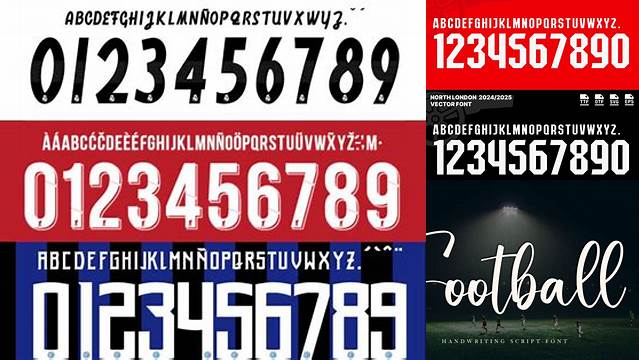
Hey football fans and design enthusiasts! Getting ready for 2026? Want your designs to scream football fever? You're in the right place! Let's dive into the world of football fonts for 2026, where we'll explore everything from where to find them to how to use them. Whether you're designing posters, jerseys, or even just spicing up your social media, having the right font can make all the difference. So, buckle up, and let's get started!
Football Fonts 2026: An Overview
Let's kick things off with a broad look at football fonts for 2026. We'll talk about why they're so important, what makes a font 'football-y,' and what to consider when you're choosing one. This is your 101 on all things football fonts, so pay attention!
Why Font Choice Matters in Football Design
So, why does the font even matter? Guys, think about it: fonts aren't just letters; they're a vibe! In football design, the right font can convey the energy, the passion, and the tradition of the sport. Imagine a sleek, modern font on a jersey versus a classic, bold typeface – they tell totally different stories, right? The font is the voice of your design, so make sure it's saying the right thing.
Key Characteristics of Football-Themed Fonts
What exactly makes a font a football font? Usually, it's a combination of characteristics like boldness, strength, and a sense of motion. Think about fonts that look powerful and dynamic, maybe with sharp edges or a slightly aggressive feel. Fonts that evoke a sense of speed and energy are also great choices. We're talking about fonts that can stand up to the intensity of the game!
Factors to Consider When Choosing a Football Font
Choosing the perfect football font isn't just about picking the coolest-looking one. You've gotta think about things like readability (can people actually read it?), the overall style of your design (does it fit?), and where you'll be using it (will it look good on a jersey?). We'll break down these factors so you can make the best choice for your project.
Understanding Font Licenses for Football Designs
Okay, this is important: before you go crazy downloading fonts, you need to understand font licenses. Just because a font is free to download doesn't mean you can use it for anything you want. We'll break down the different types of licenses and what they mean for your football designs.
Types of Font Licenses (Personal vs. Commercial)
There are two main types of font licenses: personal and commercial. Personal use fonts are fine for your own projects, but if you're planning to sell anything with the font, you'll need a commercial license. We'll explain the difference clearly so you don't accidentally break any rules.
What You Can and Cannot Do with Free Fonts
Even free fonts come with rules. We'll cover what you're typically allowed to do with free fonts and what's off-limits. Things like embedding fonts in documents or using them in logos can sometimes have restrictions, so it's crucial to be informed.
How to Check the License of a Downloaded Font
Not sure what kind of license a font has? No problem! We'll show you exactly where to look in the font files to find the license information. It's usually in a text file included with the font, and it's worth taking a few minutes to read it.
Best Font Styles for Football-Related Projects
Now, let's get specific about font styles. What kind of fonts work best for different football-related projects? We'll cover everything from bold, sporty fonts to more elegant options that might be perfect for event posters or team announcements.
Bold and Sporty Fonts for Jerseys and Banners
When you're designing for jerseys or banners, you want a font that's strong, impactful, and easy to read from a distance. Think bold sans-serifs and athletic-style fonts. We'll give you some specific examples and show you why they work so well.
Modern and Sleek Fonts for Team Logos
For team logos, you might want something a little more modern and sleek. A clean sans-serif or a geometric font can give your logo a professional and contemporary look. We'll explore some options that balance style and readability.
Classic and Vintage Fonts for Retro Designs
Love that retro football vibe? Then you'll want to check out some classic and vintage fonts. These fonts often have a timeless appeal and can add a touch of nostalgia to your designs. We'll point you to some great vintage-inspired options.
Creative and Unique Fonts for Event Posters
Event posters are a chance to get a little more creative with your font choices. You can experiment with display fonts, hand-drawn styles, or anything that fits the overall theme of the event. We'll share some ideas to get your creative juices flowing.
How to Install Fonts on Different Operating Systems
Okay, you've downloaded some awesome fonts – now what? You need to install them on your computer so you can actually use them! We'll walk you through the process of installing fonts on Windows and macOS, step by step.
Installing fonts on Windows is pretty straightforward. We'll show you the easiest ways to do it, whether you're dragging and dropping or using the font settings in Windows.
macOS makes it just as simple to install fonts. We'll cover the different methods, including using Font Book, and make sure you're up and running in no time.
Using Football Fonts in Graphic Design Software
Now that your fonts are installed, let's talk about using them in your graphic design software. We'll cover some tips and tricks for working with fonts in popular programs like Adobe Photoshop and Illustrator.
Working with Fonts in Adobe Photoshop
Photoshop is a powerhouse for graphic design, and fonts are a key part of the equation. We'll show you how to select fonts, adjust their size and spacing, and add effects to make them really stand out.
Working with Fonts in Adobe Illustrator
Illustrator is another popular choice for designers, especially for creating logos and vector graphics. We'll cover the basics of working with fonts in Illustrator, including how to outline fonts and create custom typography.
Tips for Creating Effective Football Designs with Fonts
Choosing and installing fonts is just the beginning. To create truly effective football designs, you need to use fonts strategically. We'll share some tips on font pairing, color choices, and overall design principles.
Pairing Fonts for Visual Harmony
Pairing fonts is an art form. You want to choose fonts that complement each other without clashing. We'll give you some guidelines on how to create harmonious font pairings that enhance your designs.
Choosing the Right Font Colors
Font color can have a huge impact on the overall look and feel of your design. We'll talk about how to choose colors that work well with your font and the overall theme of your project.
Incorporating Fonts into Football-Themed Graphics
Putting it all together! We'll give you some practical examples of how to incorporate football fonts into different types of graphics, from social media posts to posters to website headers.
Examples of Great Football Font Usage in Designs
Sometimes, the best way to learn is by seeing examples. We'll showcase some awesome designs that use football fonts effectively, so you can get inspired and see what's possible.
Analyzing Successful Football Jersey Designs
Jerseys are a prime example of how fonts can make or break a design. We'll analyze some successful jersey designs and point out what makes the font choices so effective.
Examining Football Poster Designs
Posters are another great place to see fonts in action. We'll look at some eye-catching football posters and discuss how the fonts contribute to the overall impact.
Highlighting Font Choices in Football Logos
Logos need to be memorable and impactful, and the font plays a crucial role. We'll examine some strong football logos and break down the font choices behind them.
Common Mistakes to Avoid When Using Football Fonts
Even with the best fonts, it's easy to make mistakes. We'll cover some common pitfalls to avoid, so you can steer clear of design disasters and create professional-looking work.
Overusing Decorative Fonts
Decorative fonts can be fun, but they can also be overwhelming if you use them too much. We'll talk about when to use decorative fonts and how to balance them with more readable options.
Ignoring Font Readability
Readability is key! If people can't read your text, your design isn't doing its job. We'll emphasize the importance of choosing fonts that are clear and easy to read, even at a distance.
Not Considering the Overall Design Theme
Your font should fit the overall theme and style of your design. We'll remind you to always think about the big picture and choose fonts that complement the other elements of your project.
Future Trends in Football Font Design for 2026
Looking ahead to 2026, what are some of the trends we might see in football font design? We'll make some predictions and discuss how font trends might evolve in the world of sports design.
Emerging Font Styles and Technologies
New font styles and technologies are always emerging. We'll talk about some of the latest trends, like variable fonts and experimental typefaces, and how they might impact football design.
Predictions for Football Font Trends in 2026
Based on current trends and industry insights, we'll make some educated guesses about what football fonts will be popular in 2026. Get ready to be ahead of the curve!